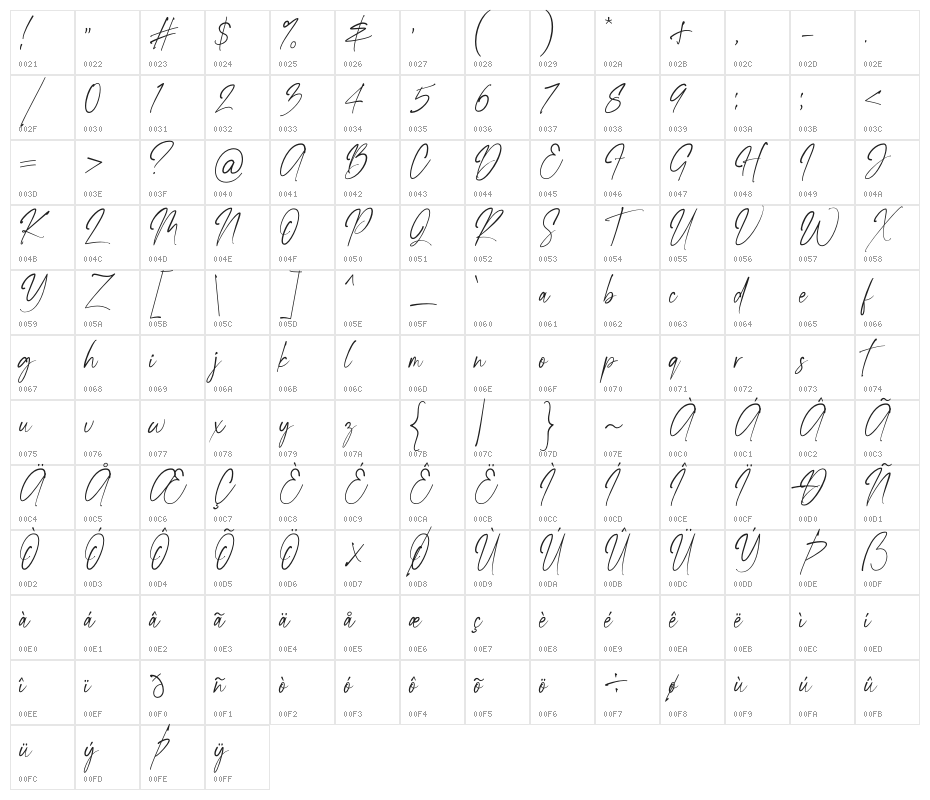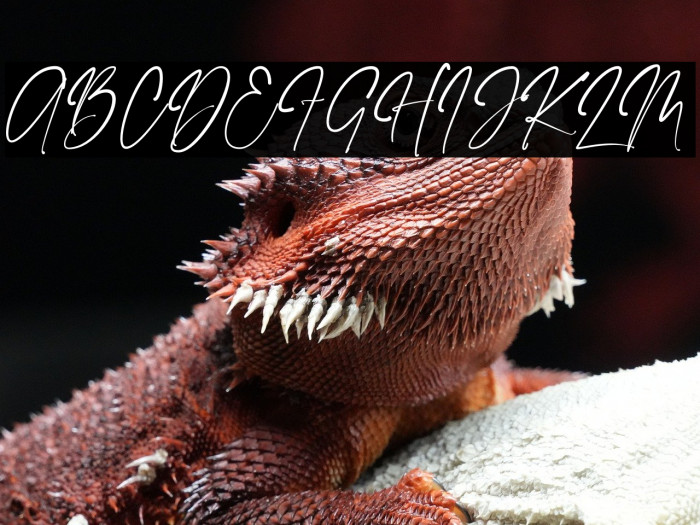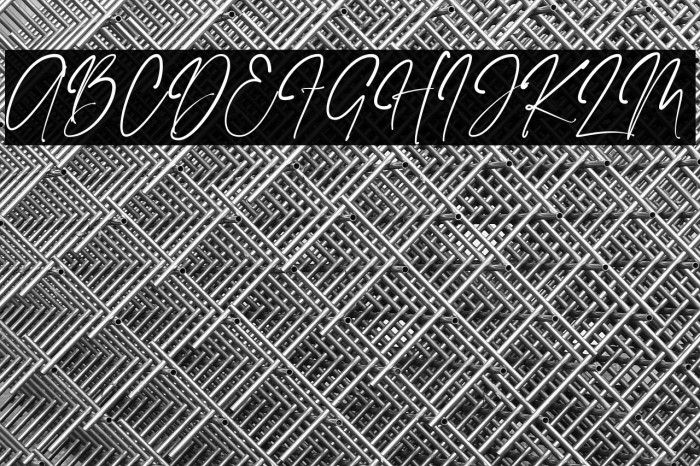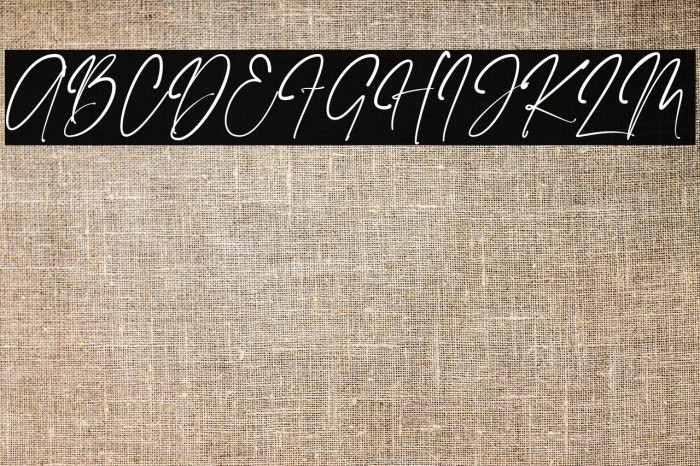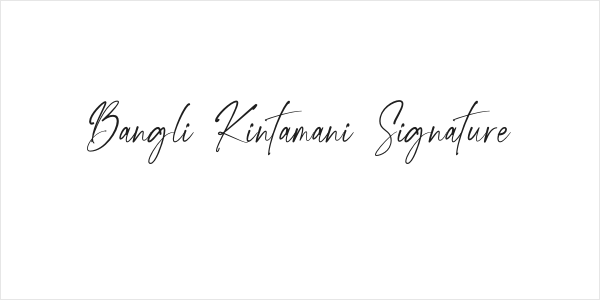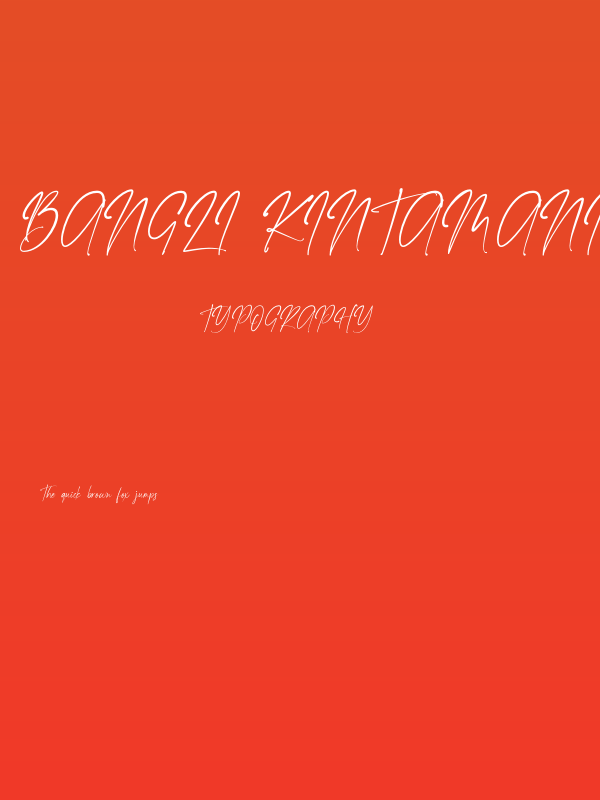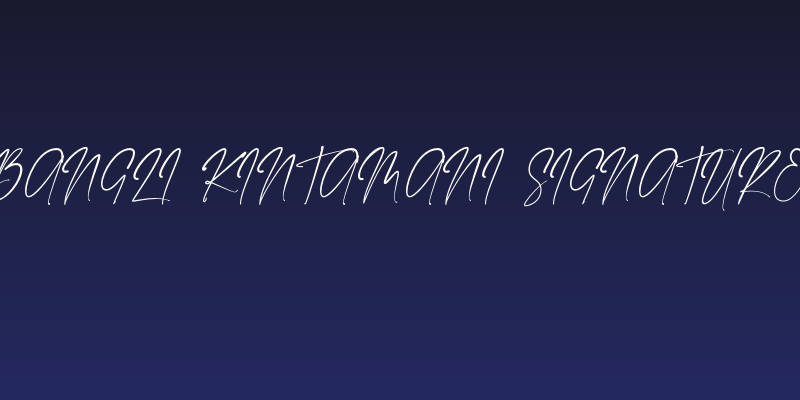
Bangli Kintamani Signature Font
Bangli Kintamani Signature Description
This font exudes a sophisticated and elegant style, characterized by its flowing, cursive script that mimics the fluidity of a handwritten signature. The letters are interconnected with smooth, sweeping lines, giving it a dynamic and graceful appearance. The uppercase letters are particularly ornate, with elaborate loops and flourishes that add a touch of luxury and refinement. The lowercase letters maintain a consistent rhythm, enhancing readability while preserving the font's artistic flair. The numerals and special characters are designed with the same attention to detail, ensuring a cohesive look across all glyphs. This font is perfect for projects that require a personal touch, such as invitations, branding, and logos.